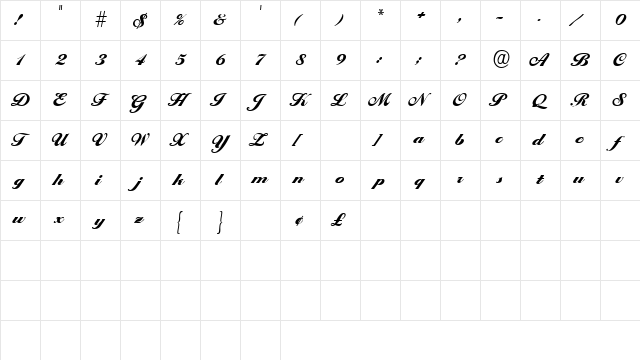
CypressSSK Regular
CypressSSK Family
Design Context for CypressSSK
CypressSSK is a composed and adaptable typeface that performs quietly and consistently across a wide range of design contexts.